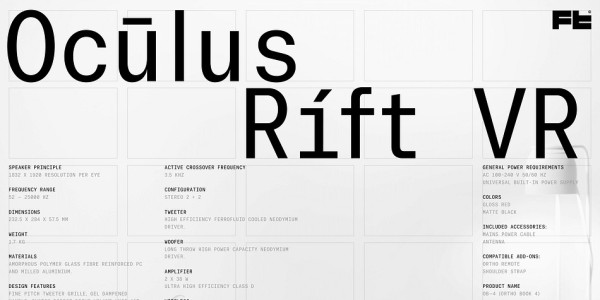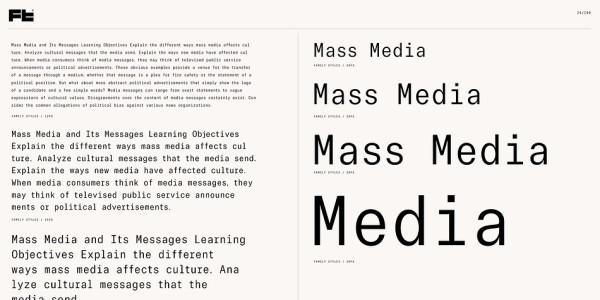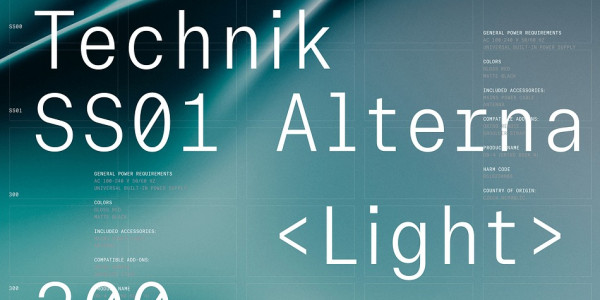
Arbeit Technik Font
Arbeit Technik Font, A semi-mono condensed rendition of our Arbeit Pro typeface. Ideal for use in technical drawings and UI applications. Features a Stylistic Set to remove the ‘mono’ style serifs.